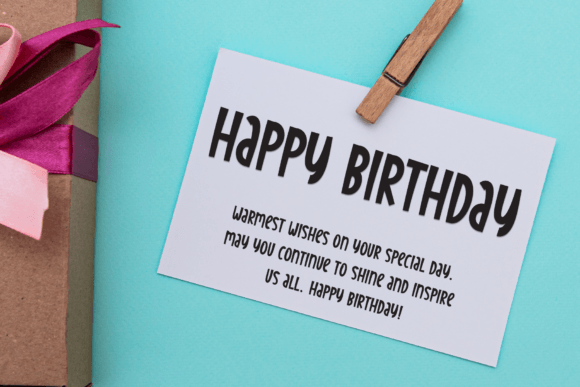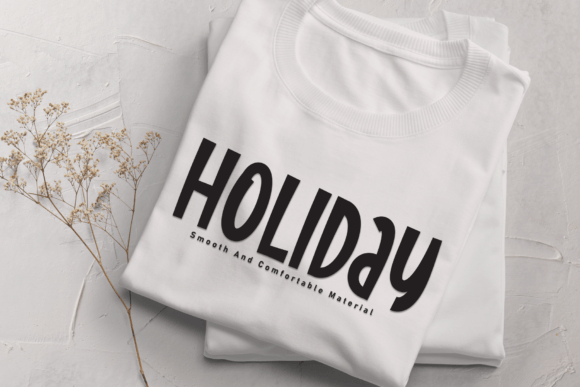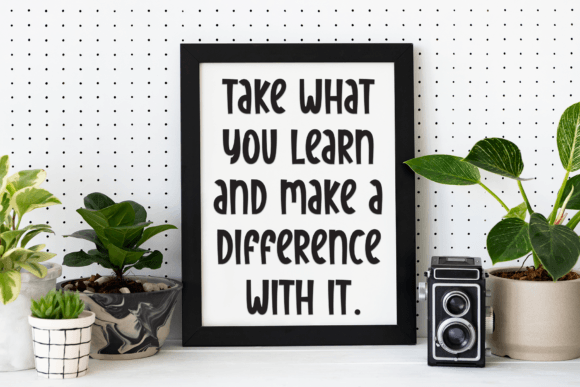
Introduction to Season Change Font
Season Change is a sweet and friendly handwritten font.
Key Features of Season Change Font
Why Choose Season Change Font?
Season Change Font offers exceptional quality and versatility, making it a valuable addition to your design toolkit. Whether you’re creating for personal projects or commercial use, Season Change Font delivers professional results.